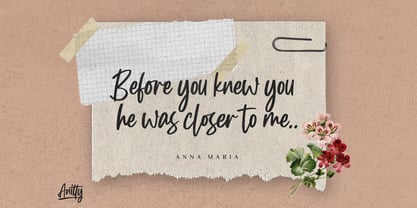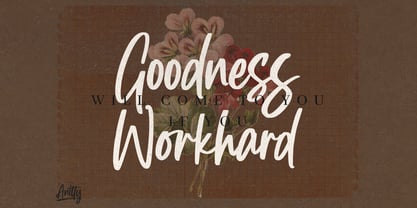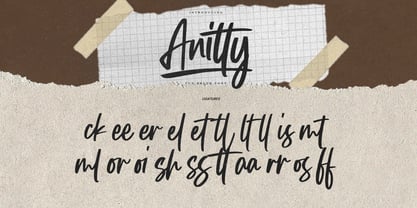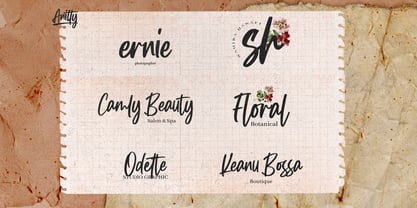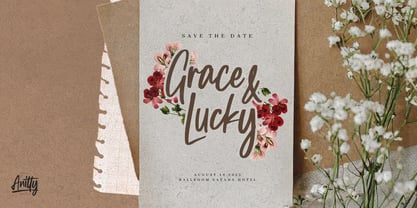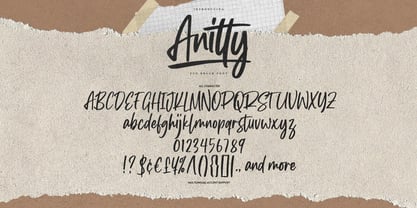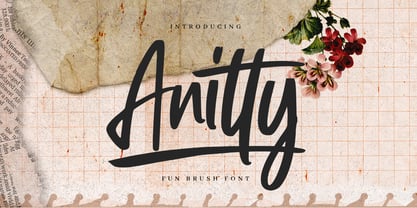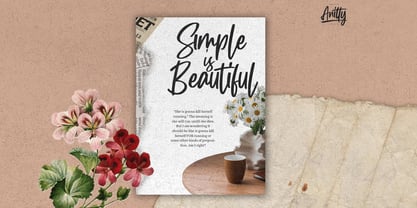
Anitty
by Gassstype
The Anitty Font Family was designed by Abdul Malik Wisnu and published by Gassstype. Anitty contains 1 styles. More about this family
Anitty is a bold and playful brush typeface that brings a natural, handwritten character to every design. With its fluid strokes, expressive curves, and spontaneous feel, Anitty adds a personal artistic touch while keeping your message strong and eye-catching. Perfect for branding, packaging, invitations, posters, apparel, social media, logos, and creative projects. Anitty — a fun brush font made to turn simple words into expressive statements.